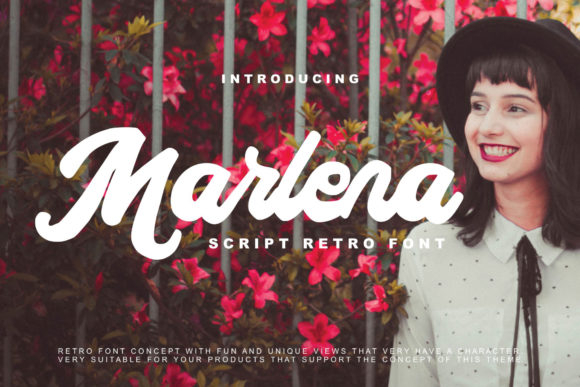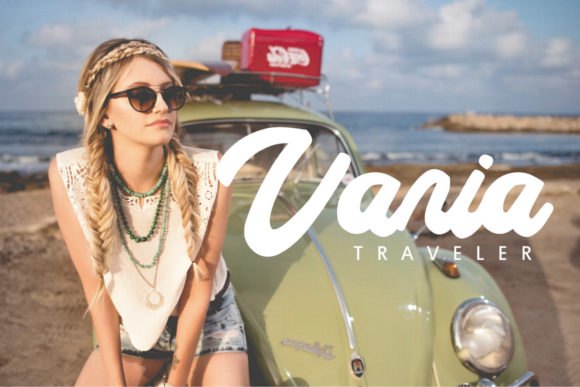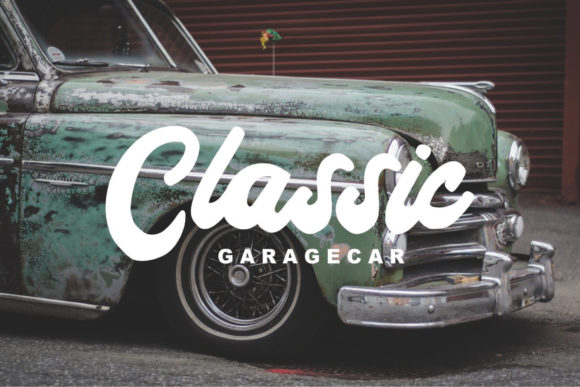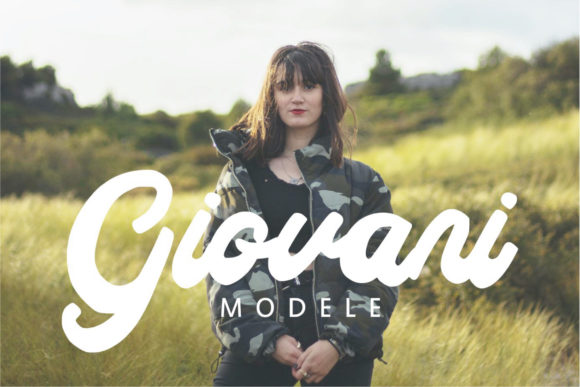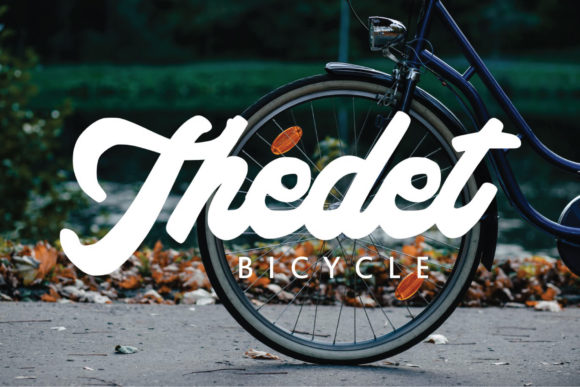
Marlena Font
About Marlena Font
Marlena is a sweet retro script with bold curves and organic lettering. Use it to add a 70s vintage spark to any design project!